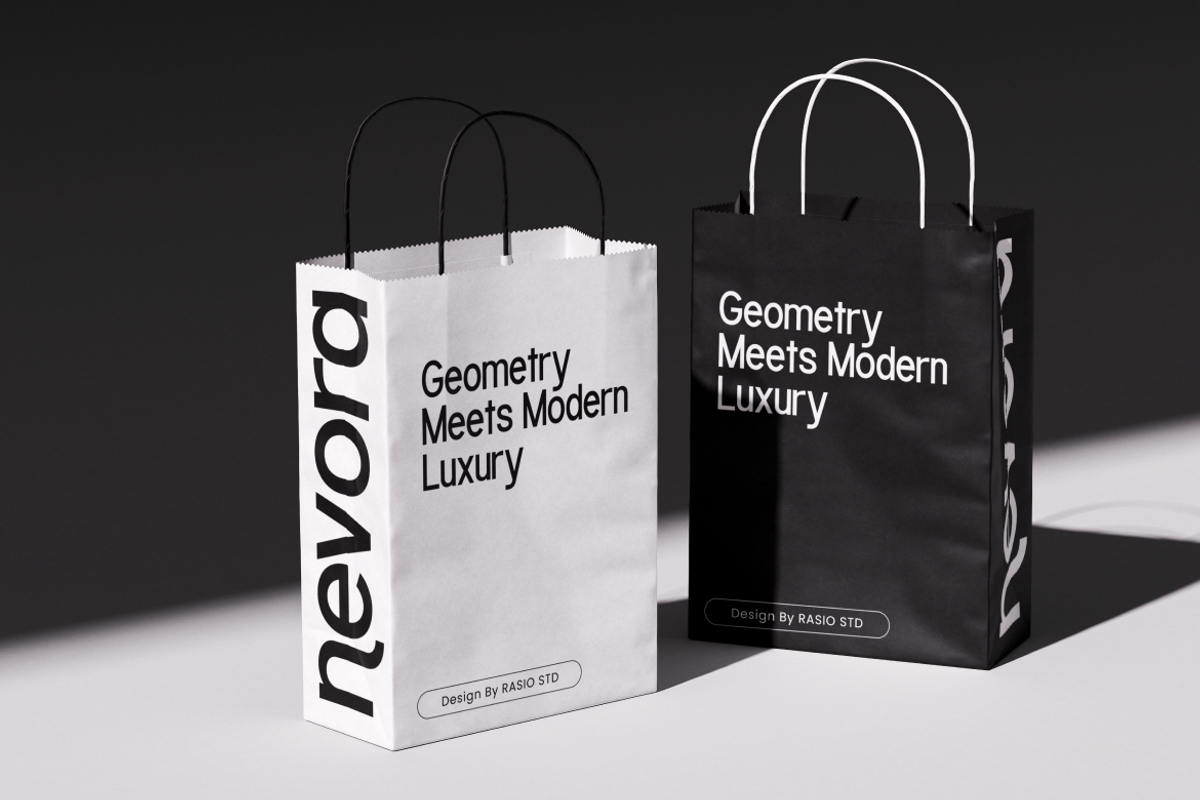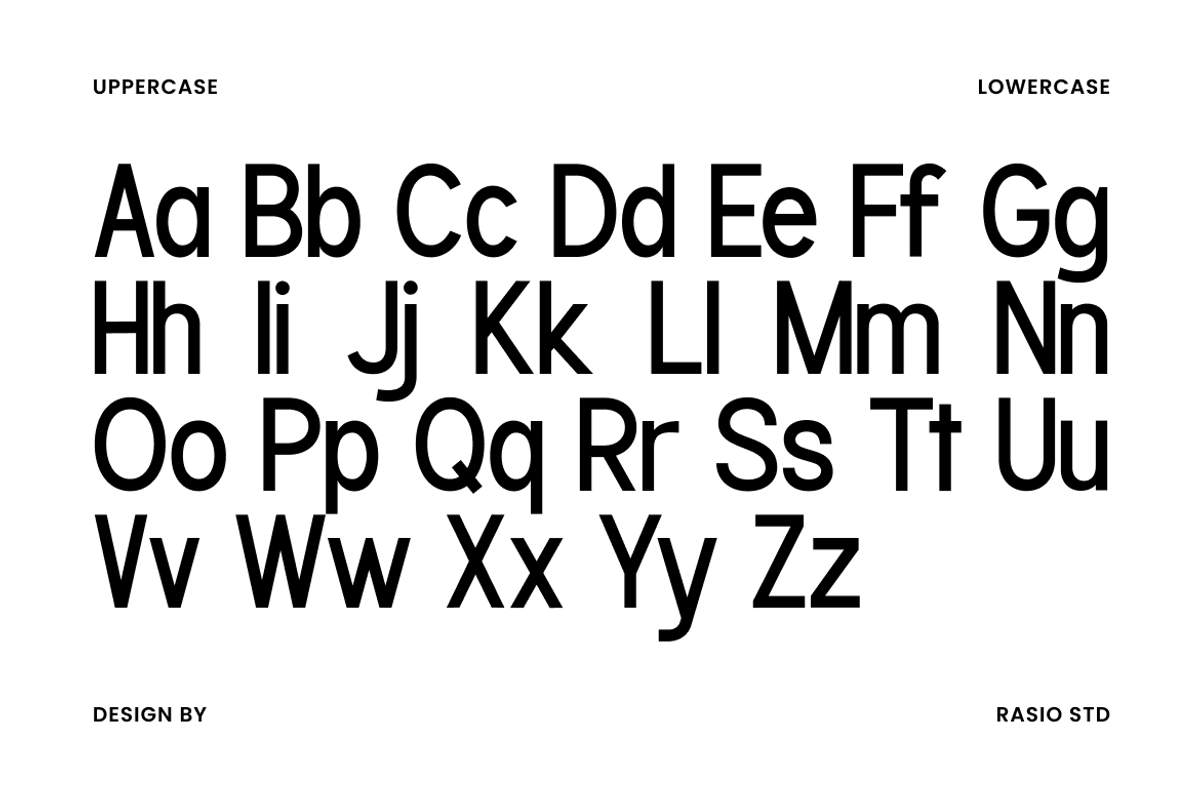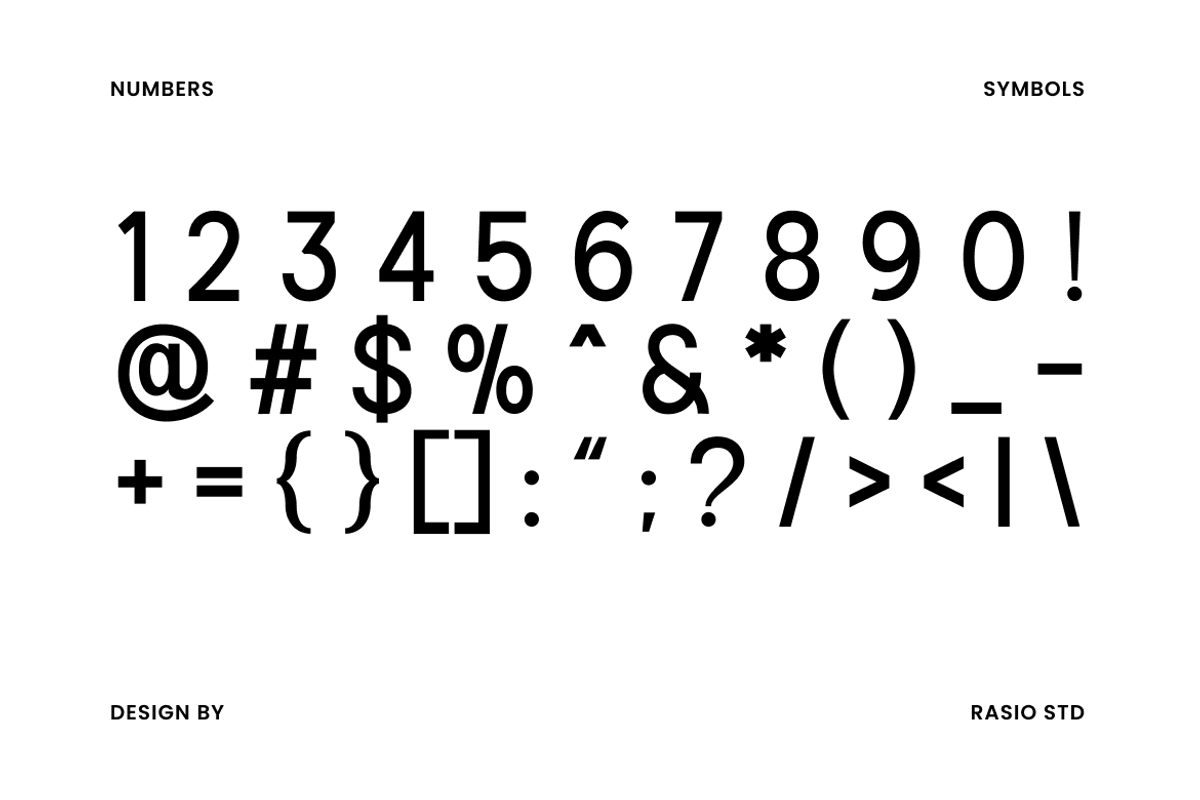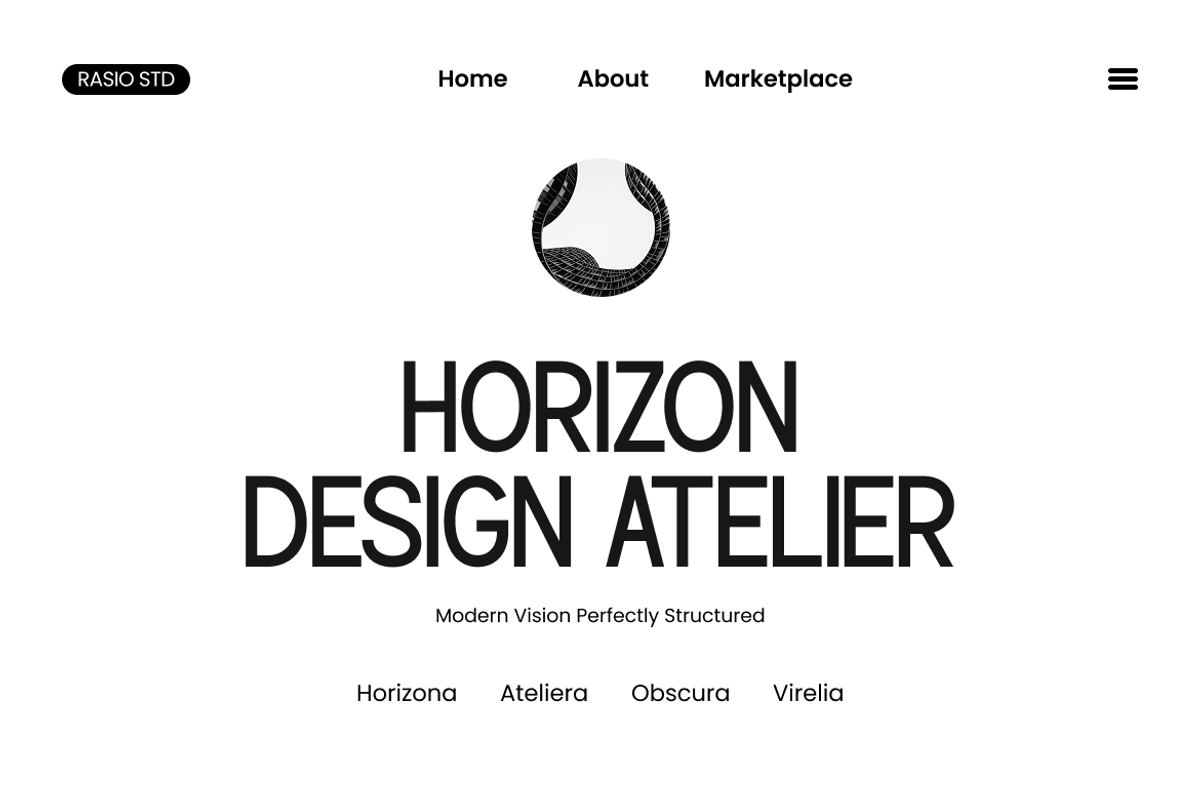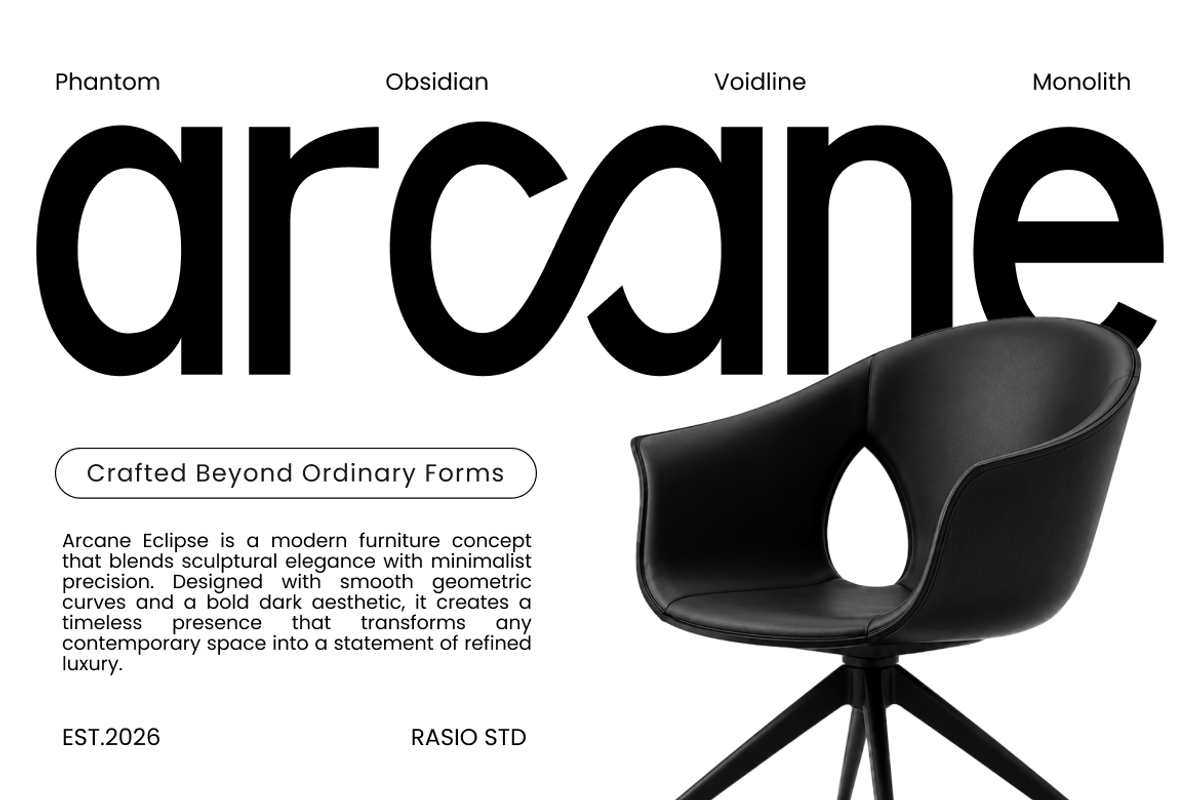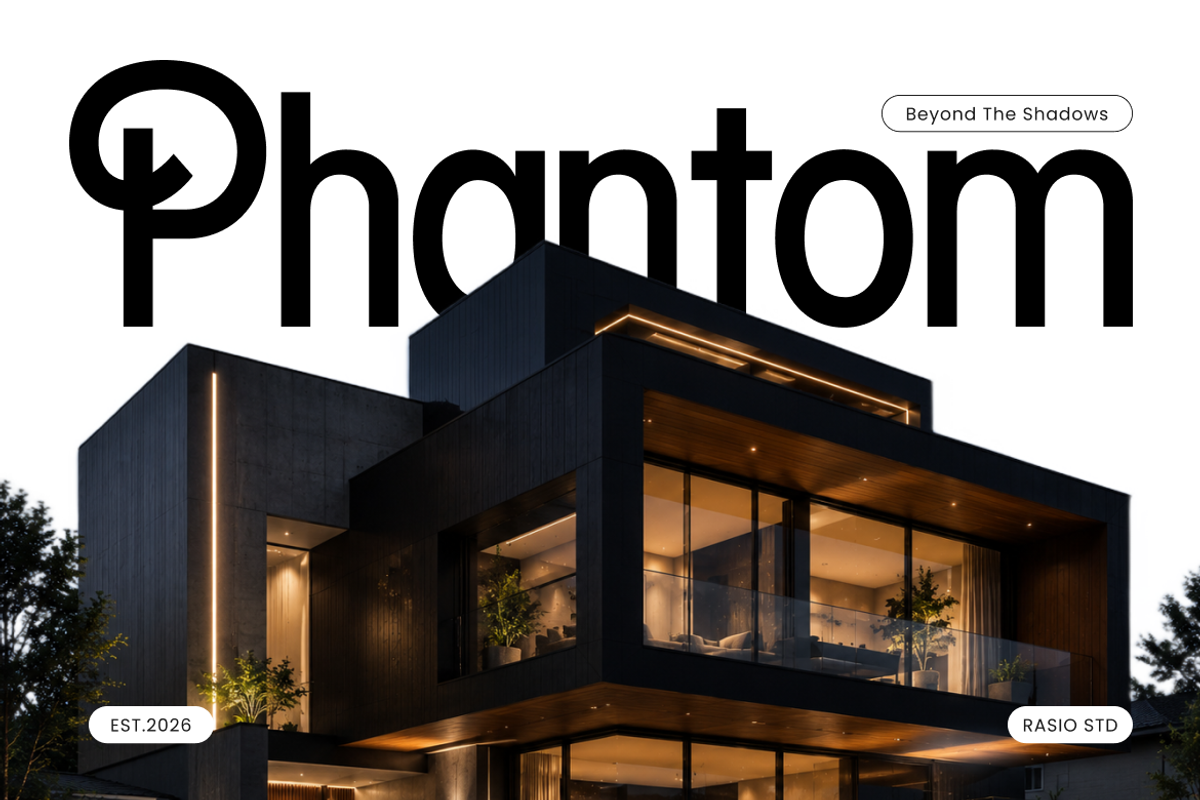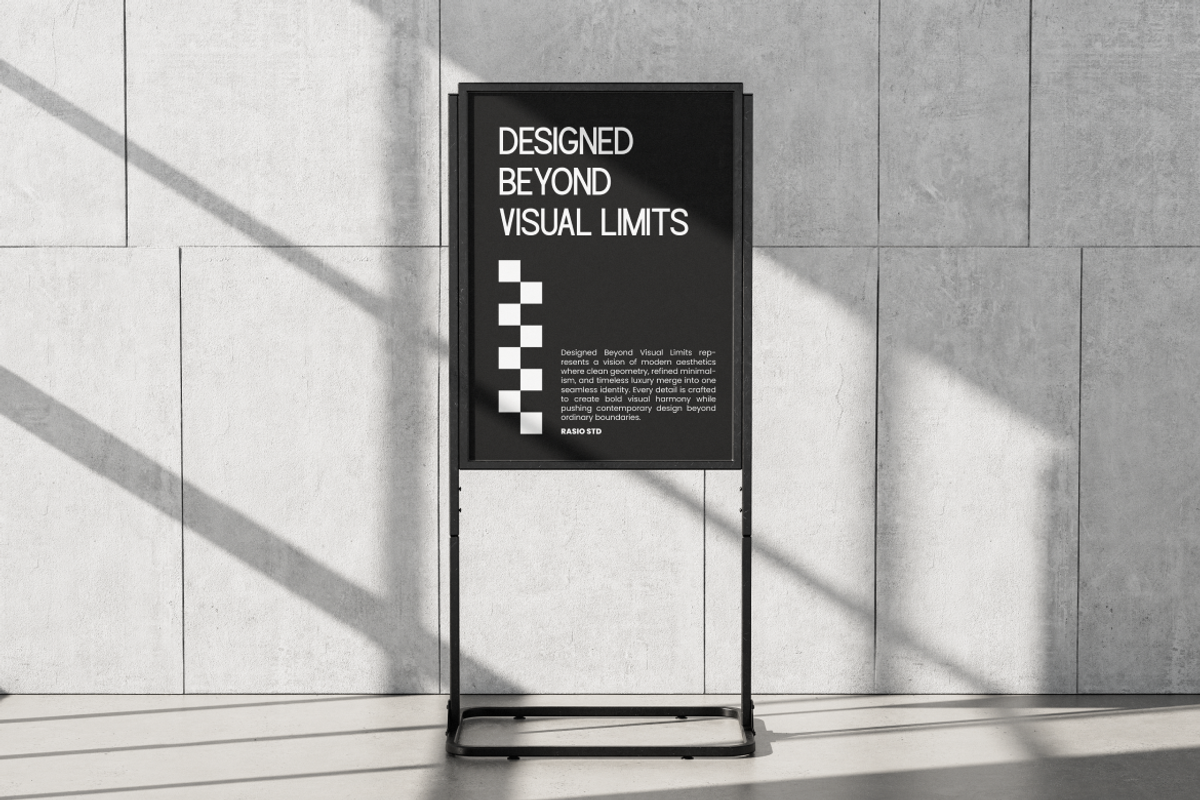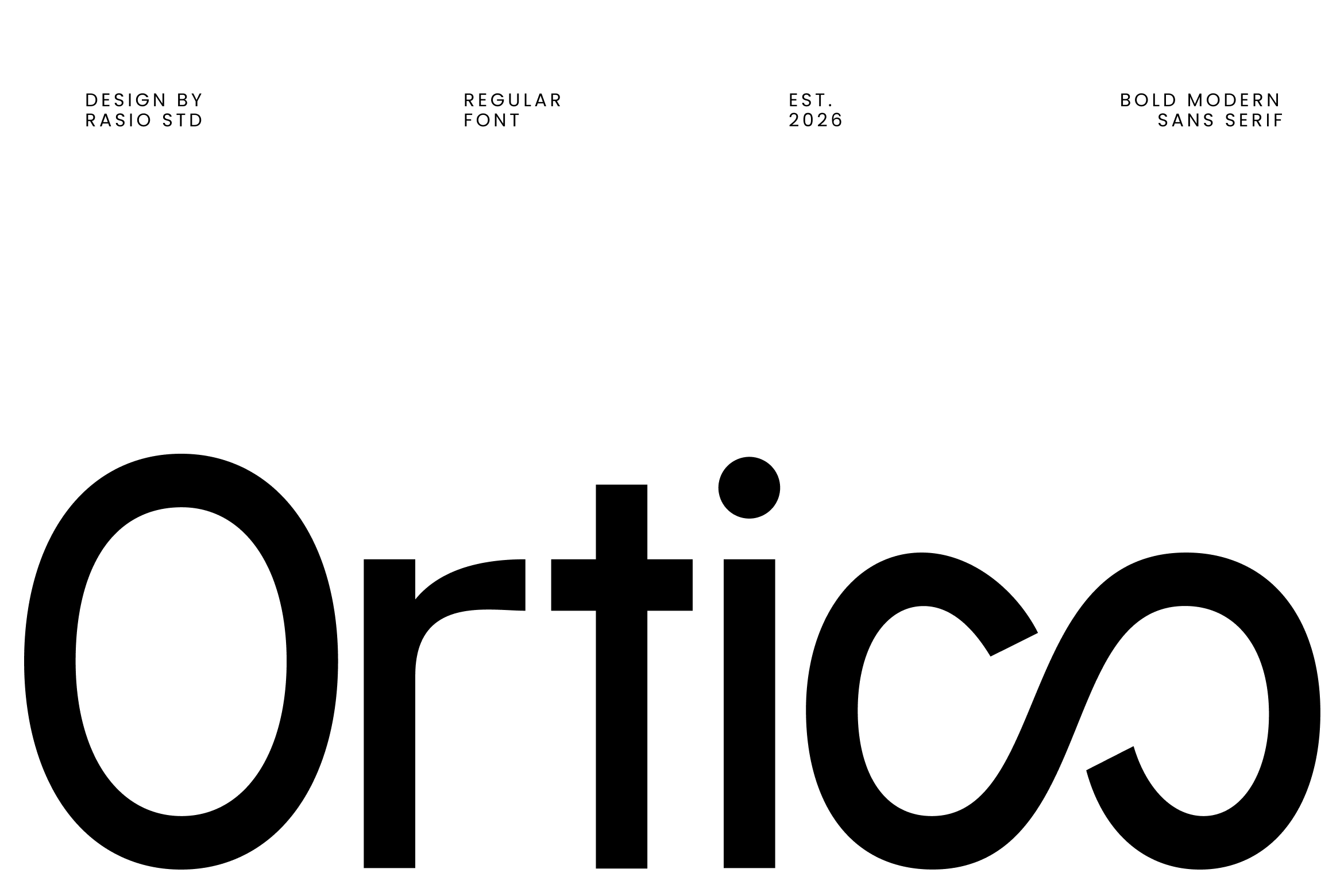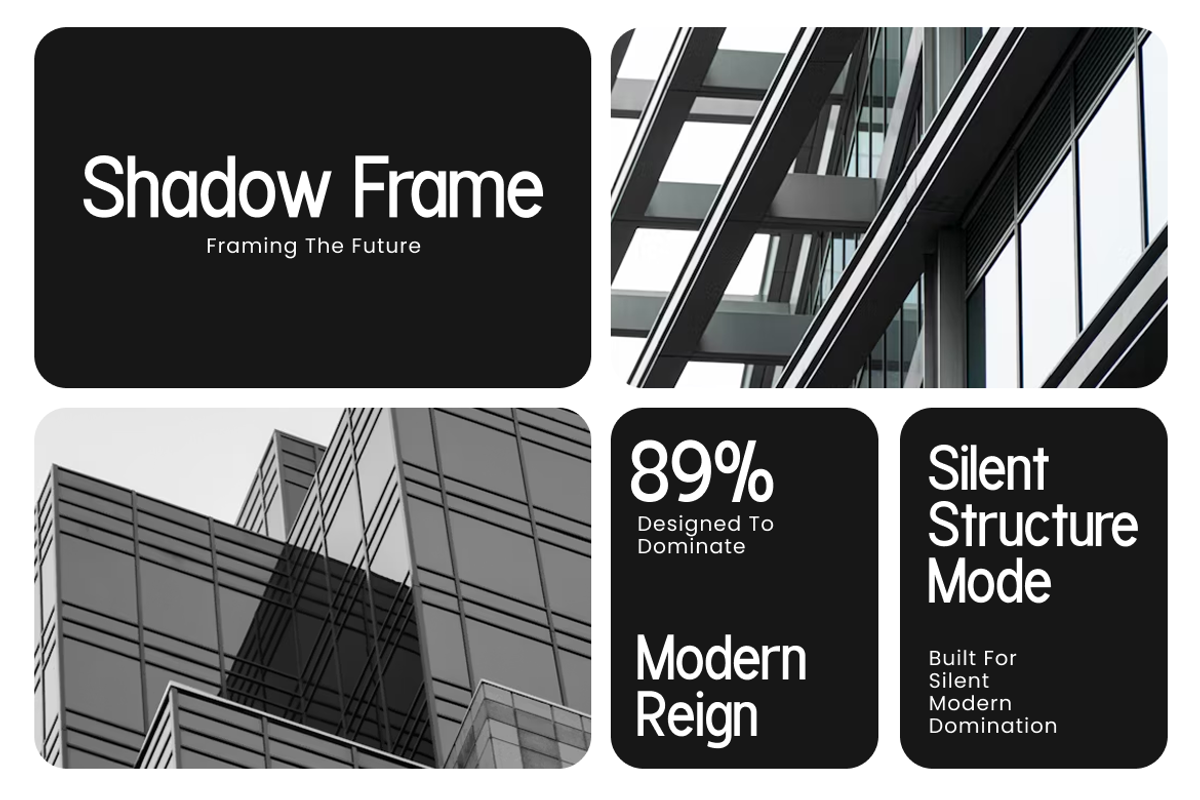
Ortico Modern Clean Sans Serif Font
Ortico Bold Modern Sans Serif is a contemporary sans serif typeface defined by its clean geometry, generous proportions, and confident visual presence. The font features bold letterforms with smooth curves, balanced stroke widths, and carefully refined construction that creates a strong yet approachable appearance. Its minimalist design language removes unnecessary details, allowing the typography to communicate with clarity, precision, and consistency. The rounded counters and open forms contribute to excellent legibility while maintaining a distinctive and memorable character across a wide range of applications.
Built for versatility, Ortico performs exceptionally well in branding systems, digital interfaces, editorial layouts, packaging design, advertising materials, and presentation graphics. The bold structure helps establish clear hierarchy in headlines, titles, and display compositions, while the balanced spacing ensures readability in supporting text and communication materials. Its contemporary aesthetic adapts seamlessly to technology brands, creative agencies, startups, corporate identities, product launches, website design, social media campaigns, and modern marketing projects, delivering a clean and professional visual voice across both print and digital environments.
Bold geometric construction with clean and highly recognizable letterforms
Smooth rounded curves that create a friendly and approachable character
Uniform stroke weight for a strong and consistent visual appearance
Open counters and generous proportions that enhance readability
Minimalist structure free from decorative elements for maximum clarity
Brand identity systems requiring a confident and contemporary visual voice
UI/UX design templates for software platforms, mobile applications, and digital products
Technology startups and SaaS branding projects focused on clarity and accessibility
Editorial layouts, reports, and publications with clean typographic hierarchy
Product packaging and label systems built around simplicity and strong recognition
Screen-optimized kerning for responsive web design
Supports numerals, punctuation, and extensive symbol set